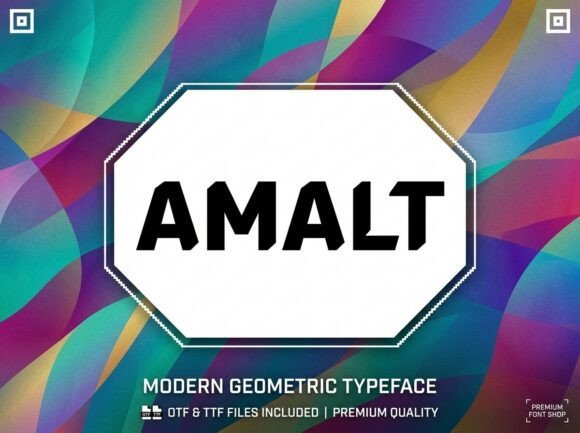
Introduction to Amalt Font
Step into the future of design with AMALT, a powerful display typeface that captures a “tech-forward-and-architectural” soul.
This font features heavy, geometric sans-serif letterforms characterized by sharp, 45-degree angled terminals and a solid block construction that radiates industrial strength With its massive structural weight and high-contrast presence, AMALT is the premier choice for independent esports branding, futuristic gaming logos, architectural firm identities, and high-impact “bold-and-digital” social media headers.
Key Features of Amalt Font
Why Choose Amalt Font?